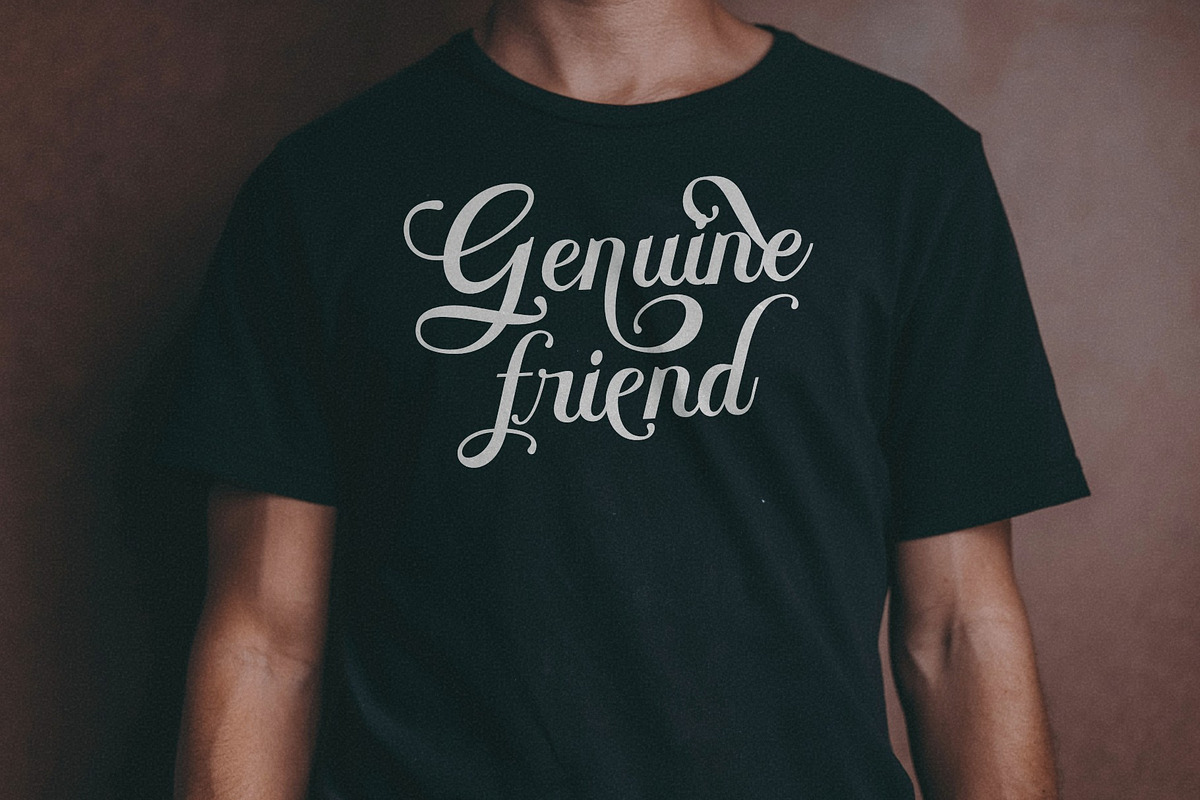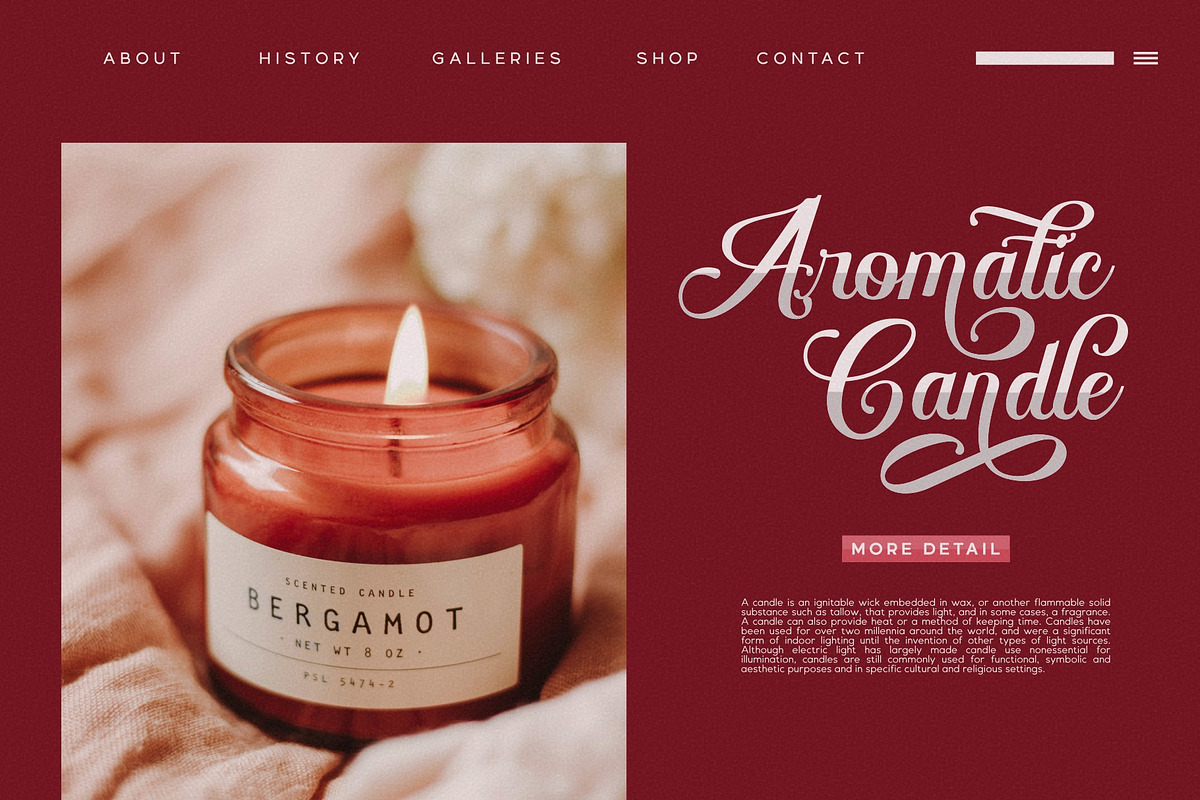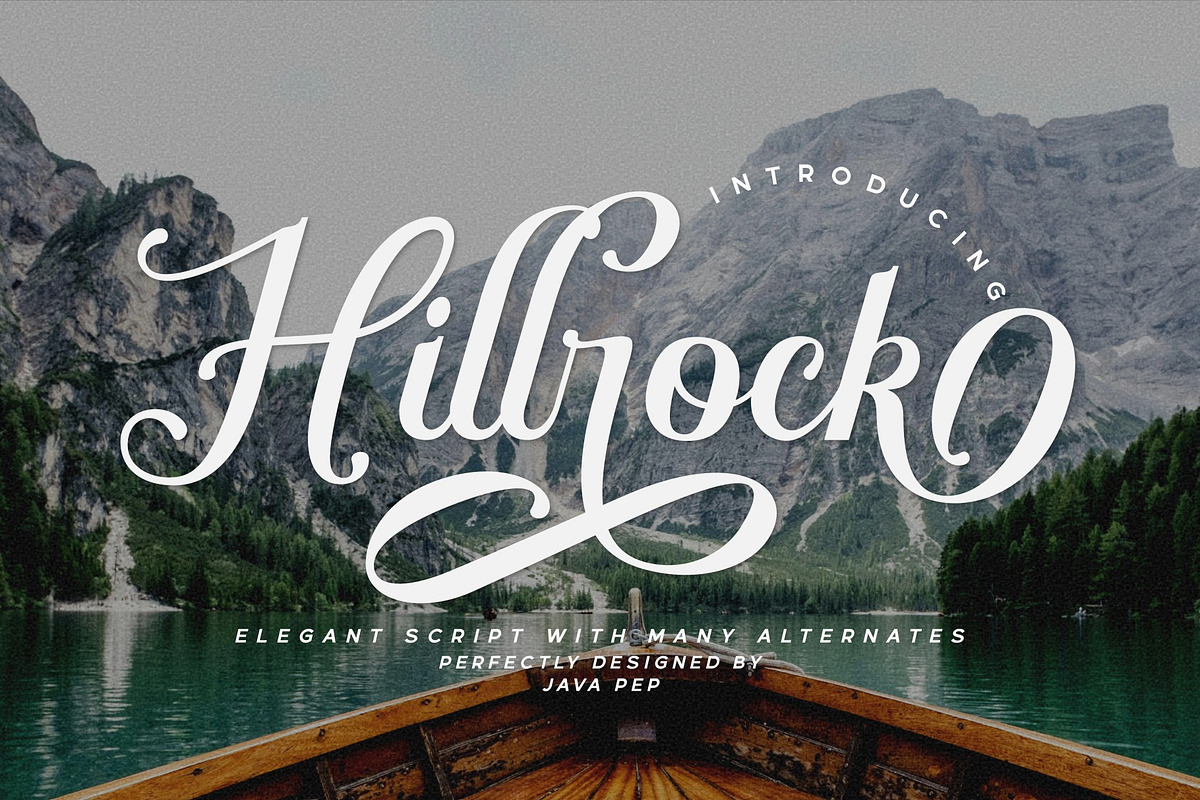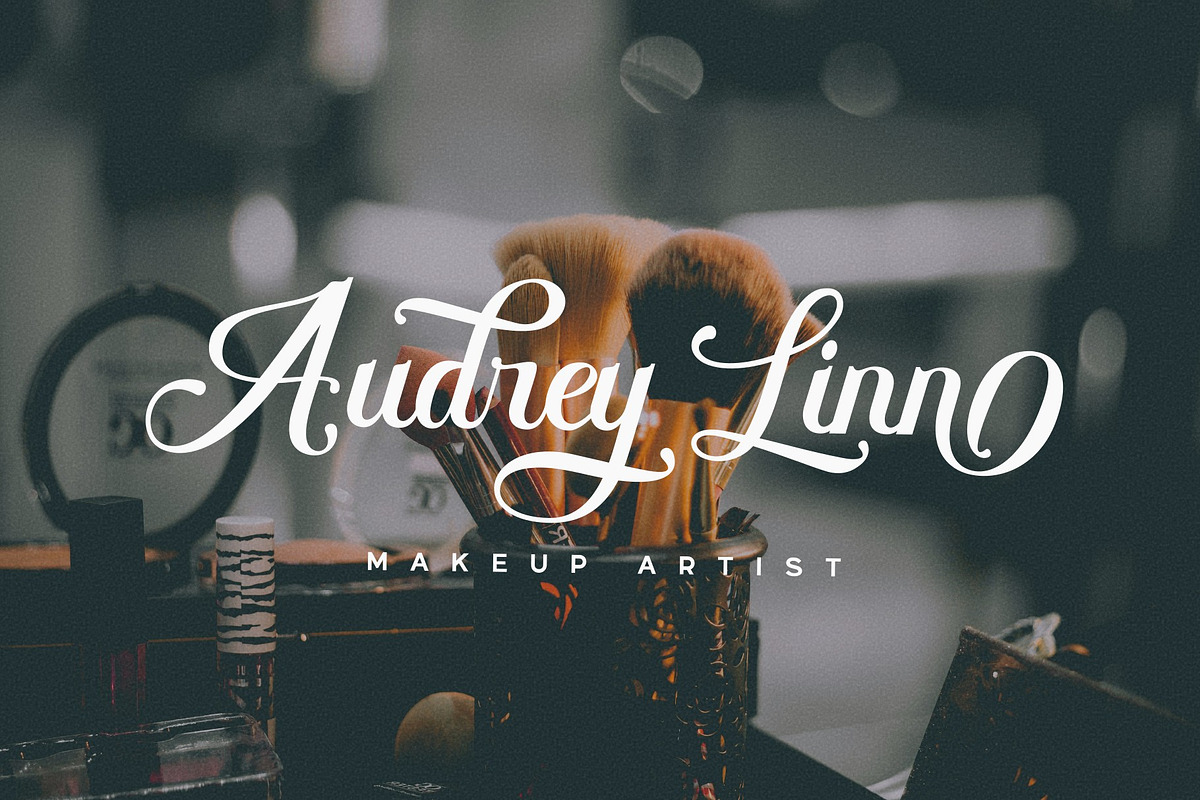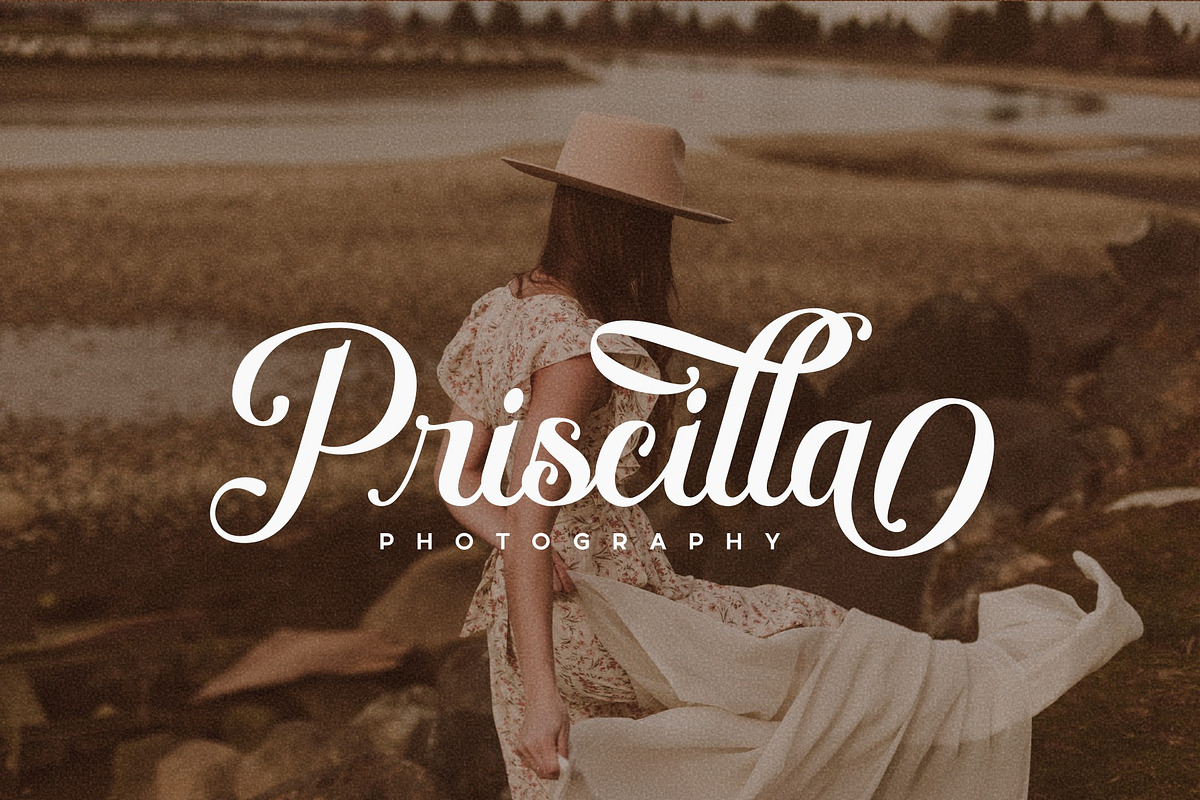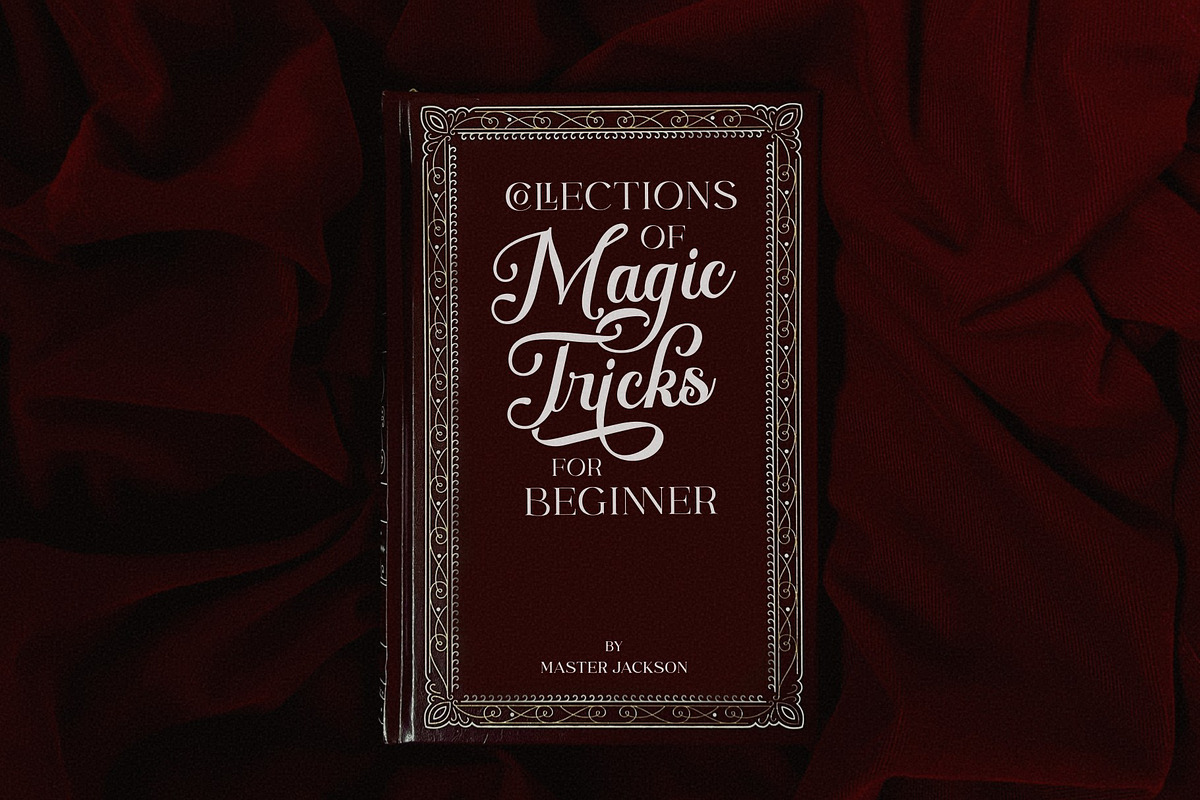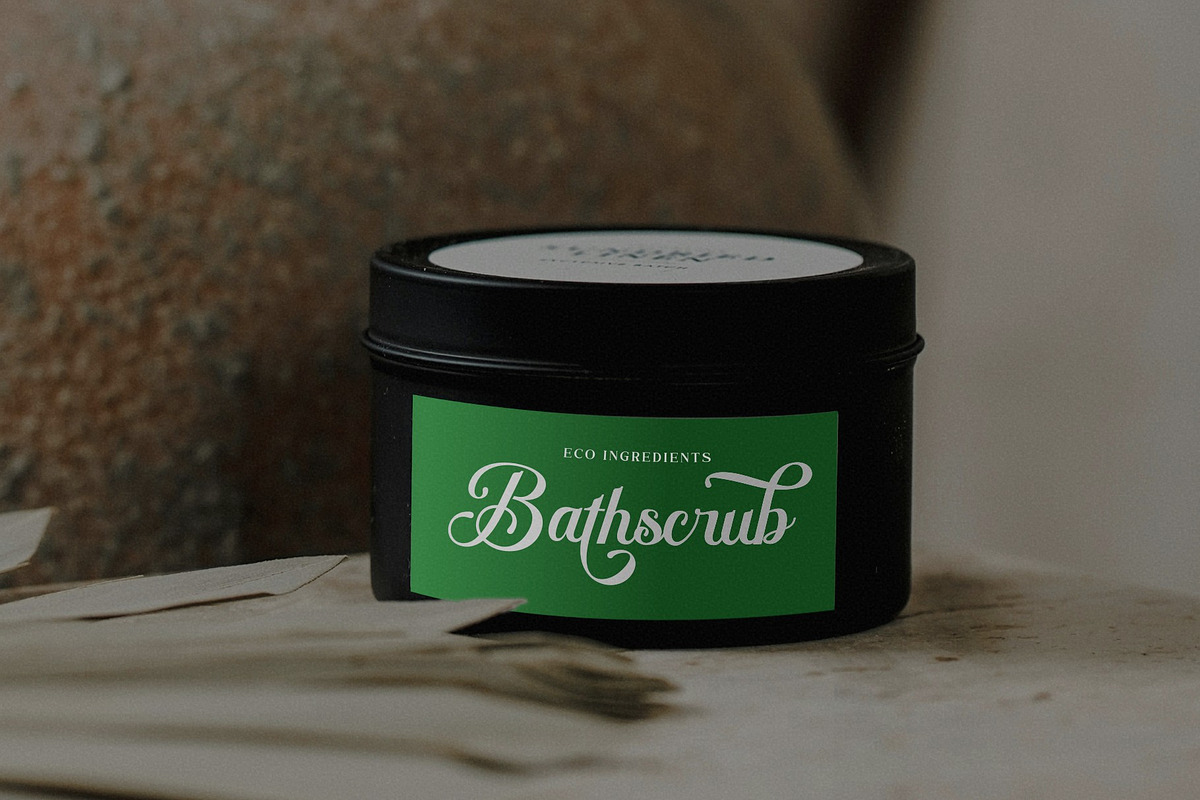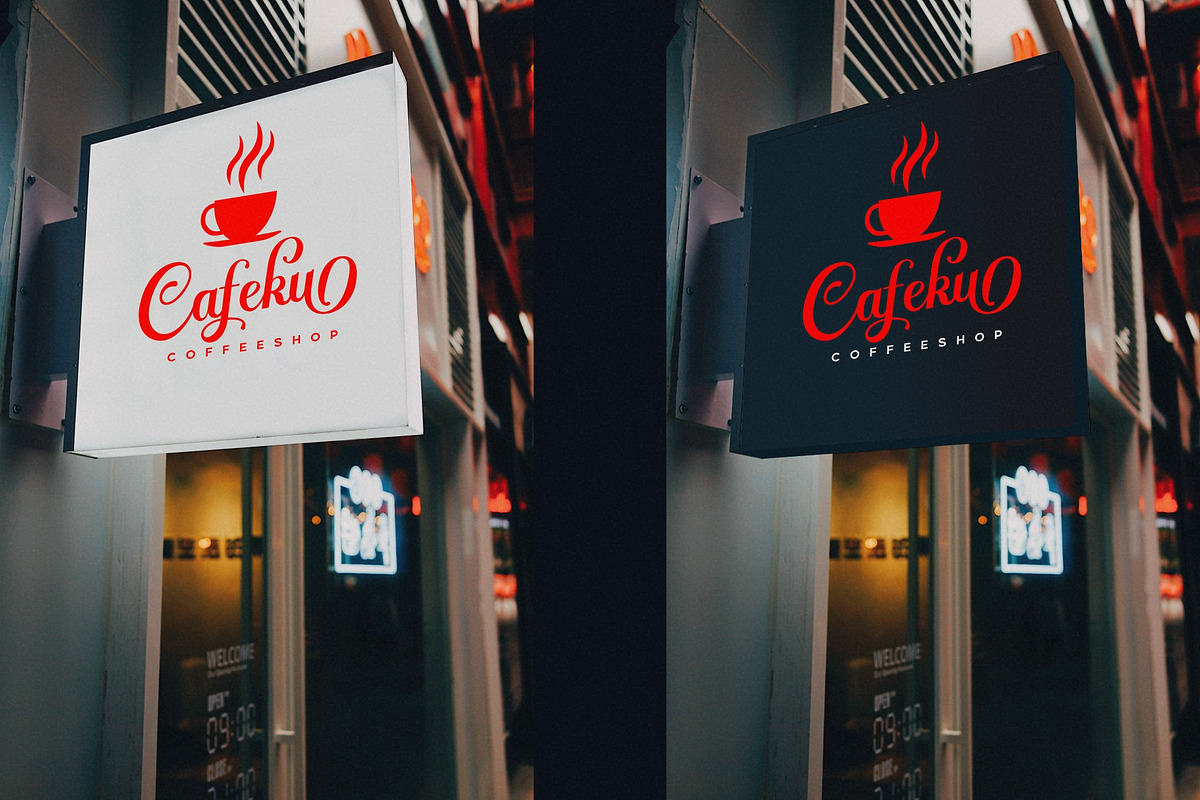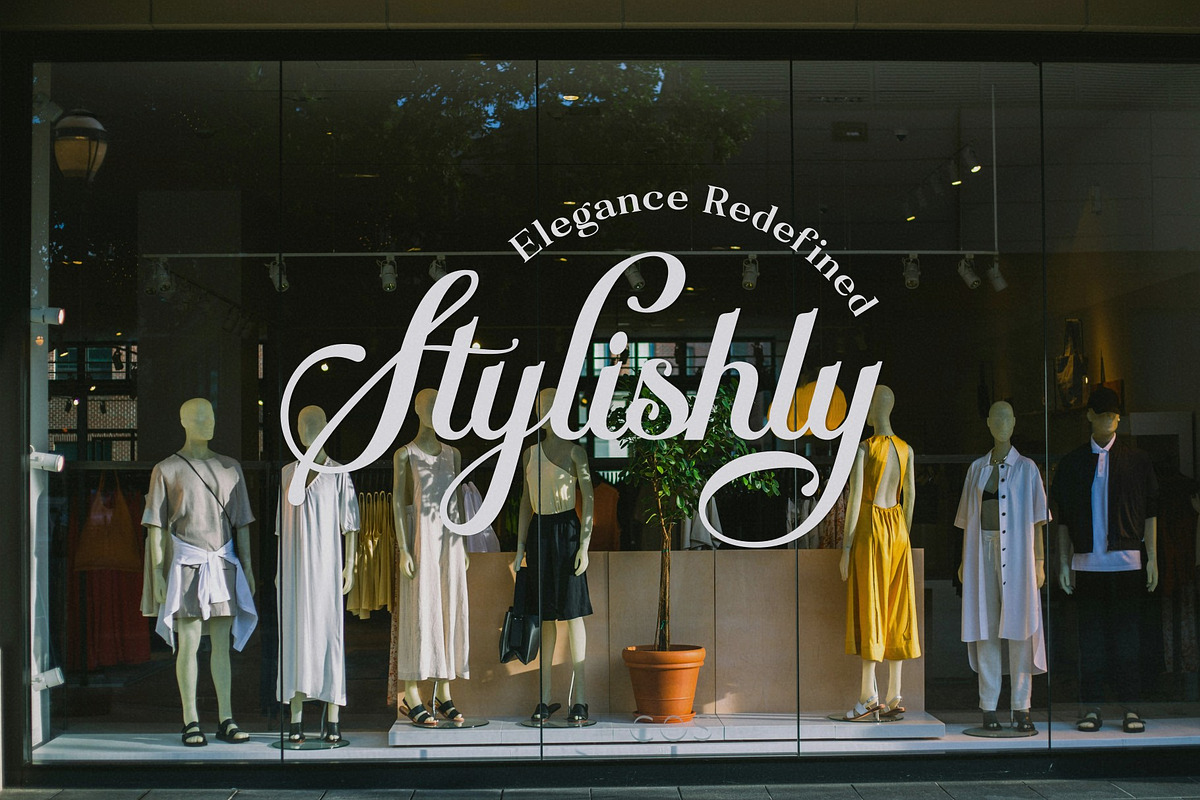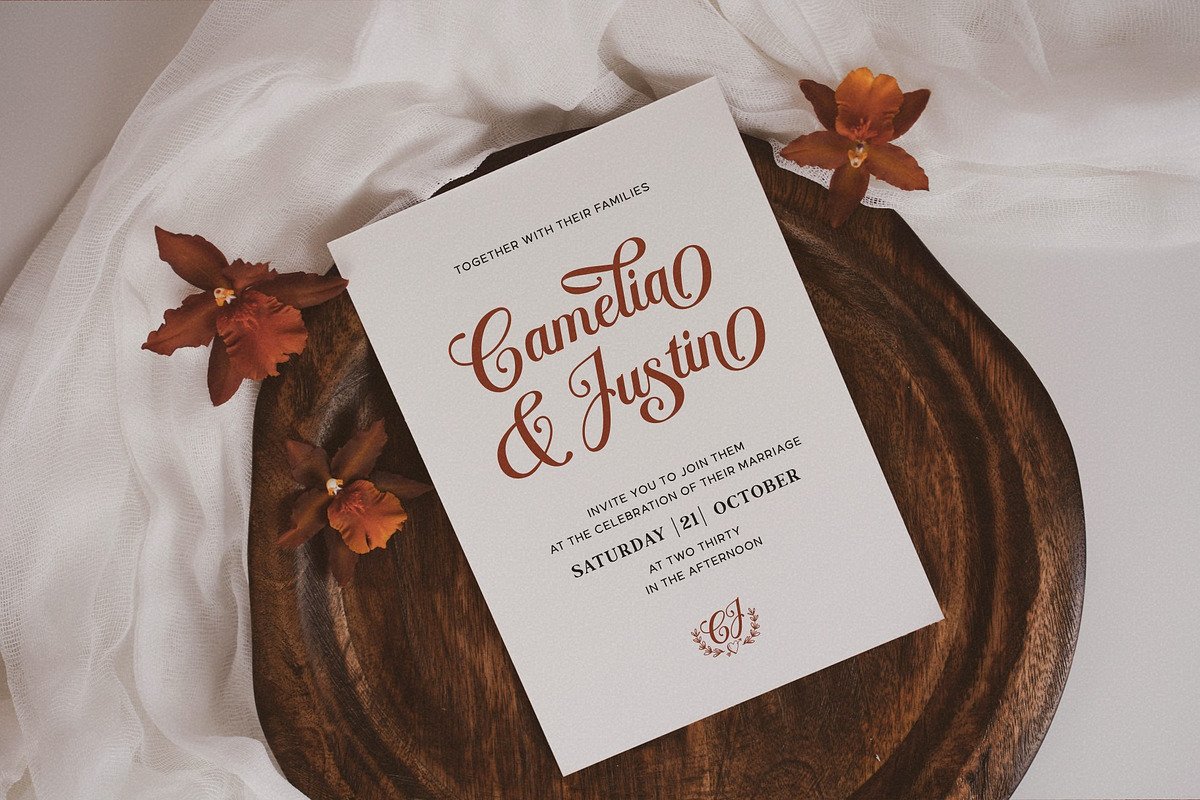
Hillrock / Elegant script
Proudly presenting an elegant script font called Hillrock. This font comes with many alternatives that have more than 3 glyphs for each letter, which you can mix & match to get more outstanding looks. Hillrock font is perfect for logo font, branding, greeting cards, cut files for quotes, silhouette font design, monogram font, etc.
- Uppercase, lowercase, numeral, & punctuation
- Opentype features